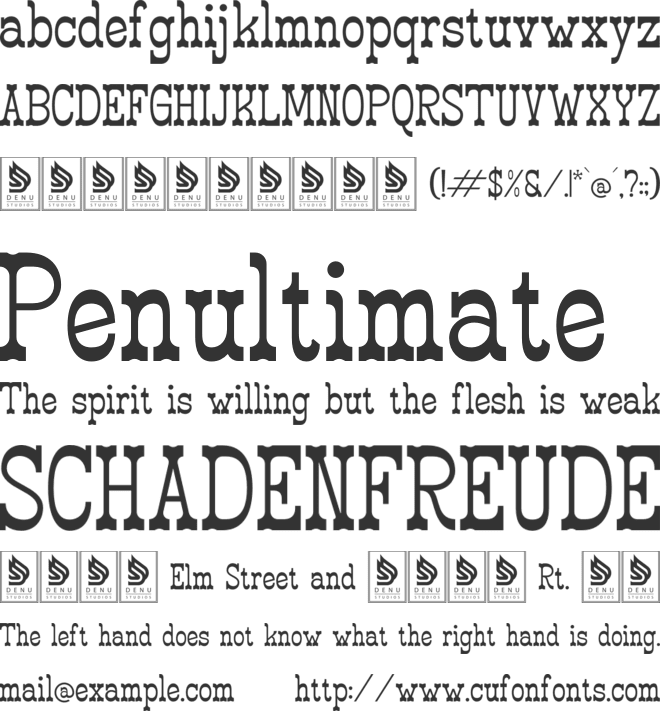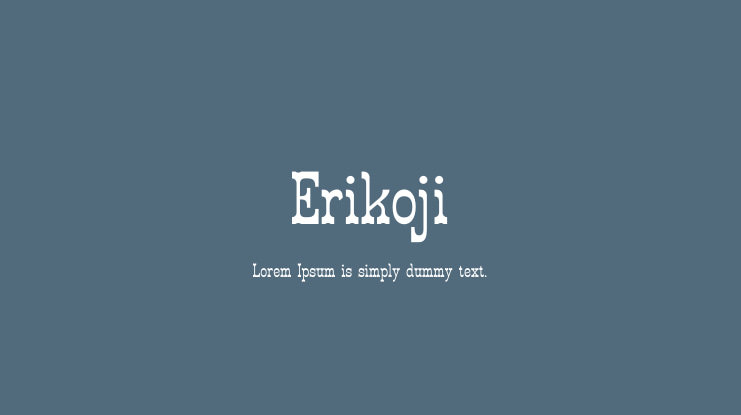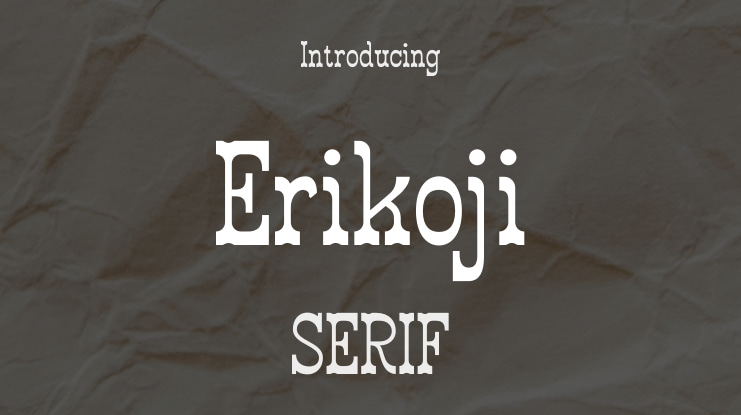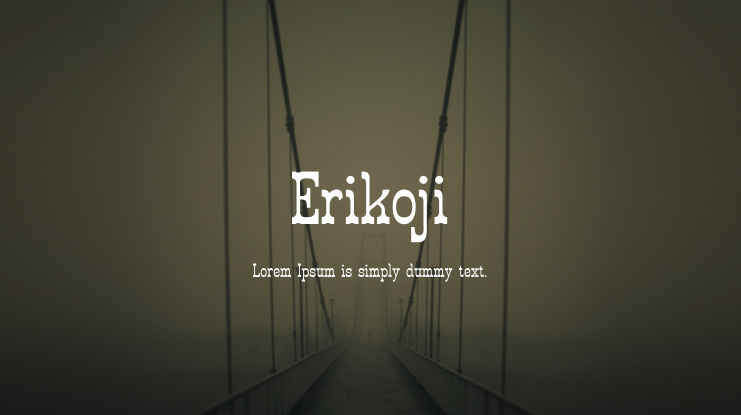
**Erikoji | Retro Slab Serif Font**
Elevate your various projects with the classic appeal of Erikoji | Retro Slab Serif. Perfect for logos, branding projects, homeware designs, product packaging, mugs, quotes, posters, shopping bags, t-shirts, book covers, name cards, invitation cards, greeting cards, labels, photography, watermarks, special events, and any projects needing a touch of Retro Slab Serif elegance.